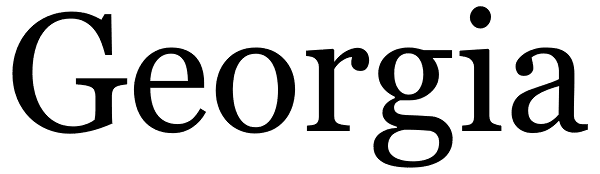
Georgia
Although inspired by the need for, and providing, clarity at low resolutions on the screen, Georgia is a typeface resonant with typographic personality. Even at small sizes the face exudes a sense of friendliness. This is as much testament to the...